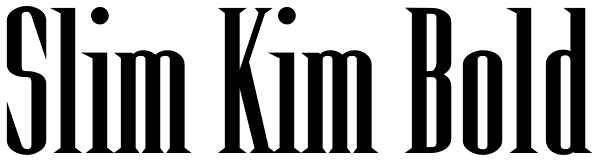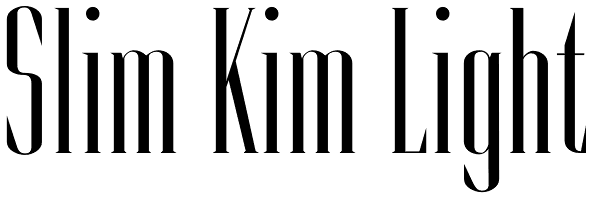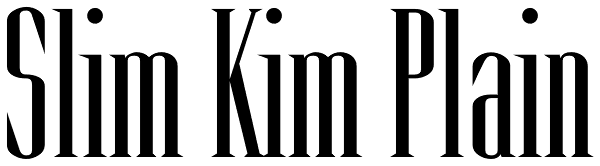
Slim Kim
Slim Kim is the sister font of Julienne. It mixes perfectly with Julienn. So whenever you need an especially slim serif font this is it! Slim Kim has very spiky serifs, so I did not want to make an extra-slim version. Enjoy this spiky font, your...